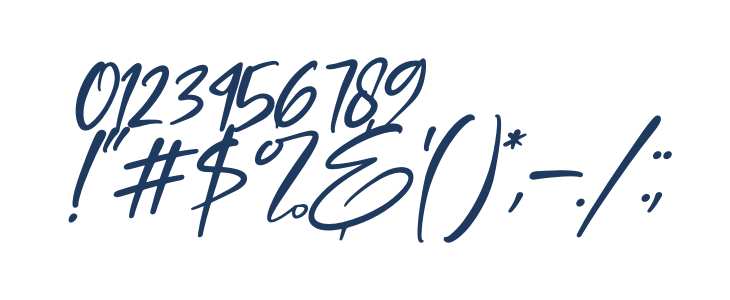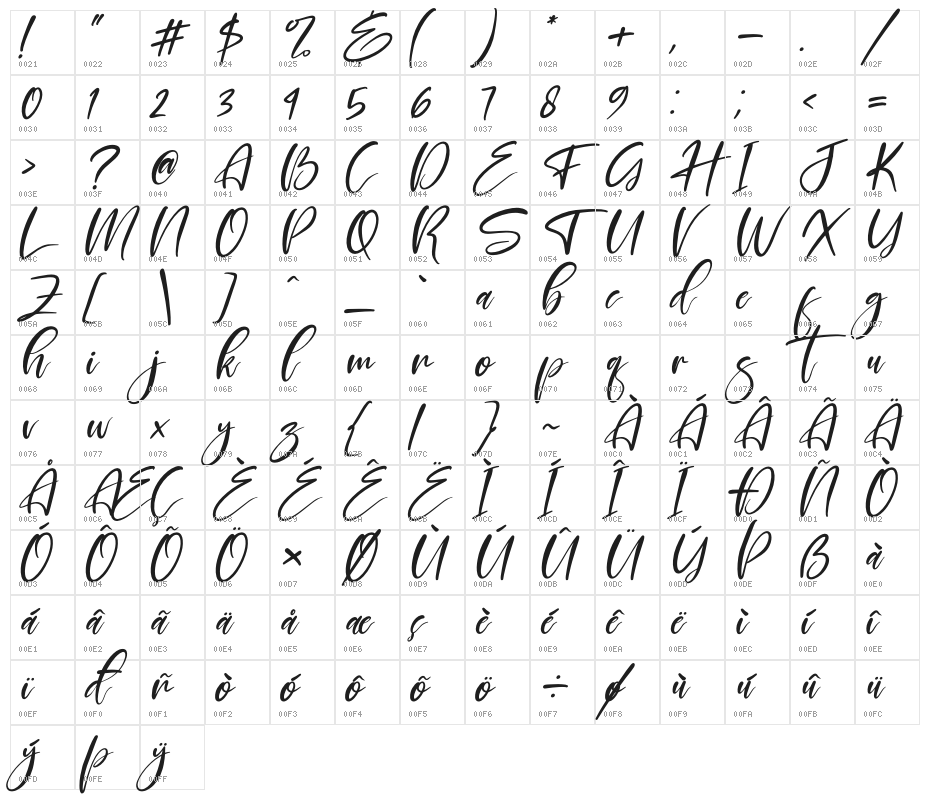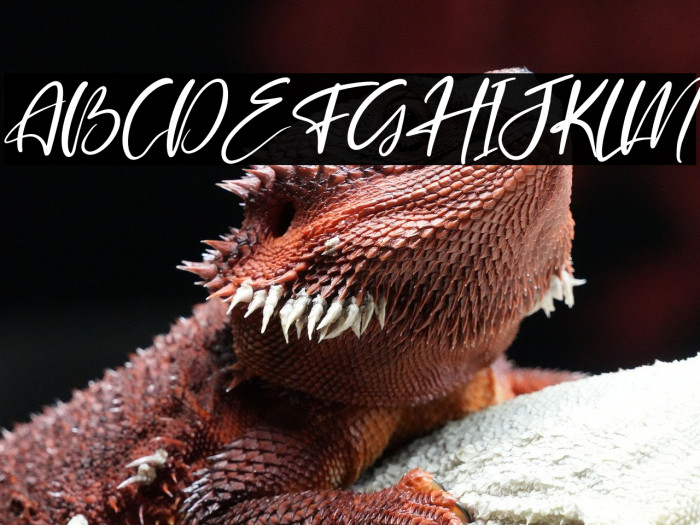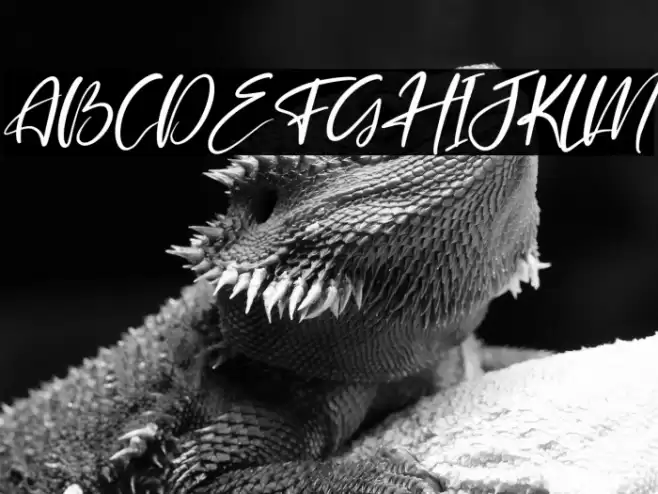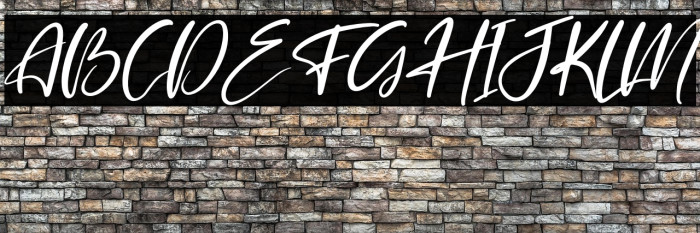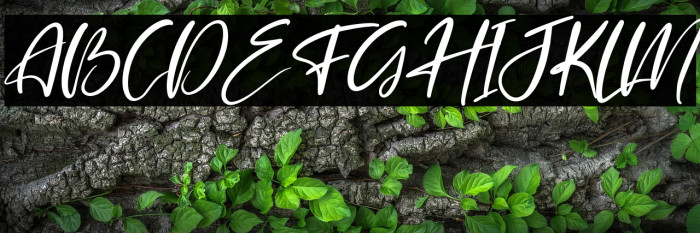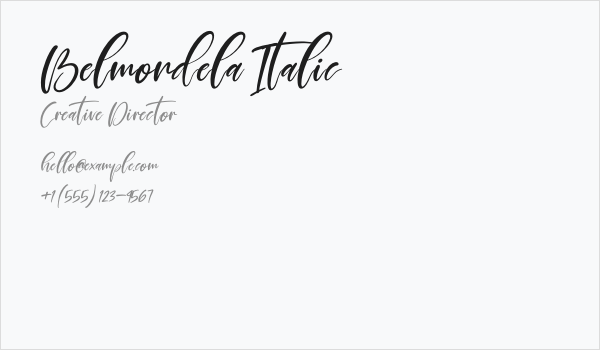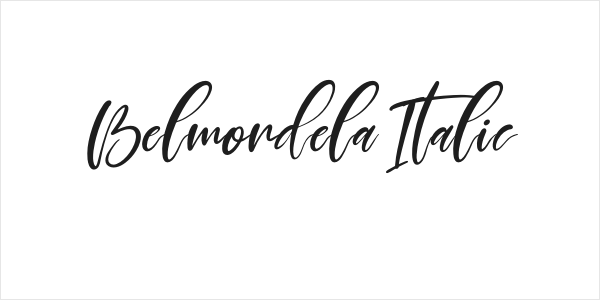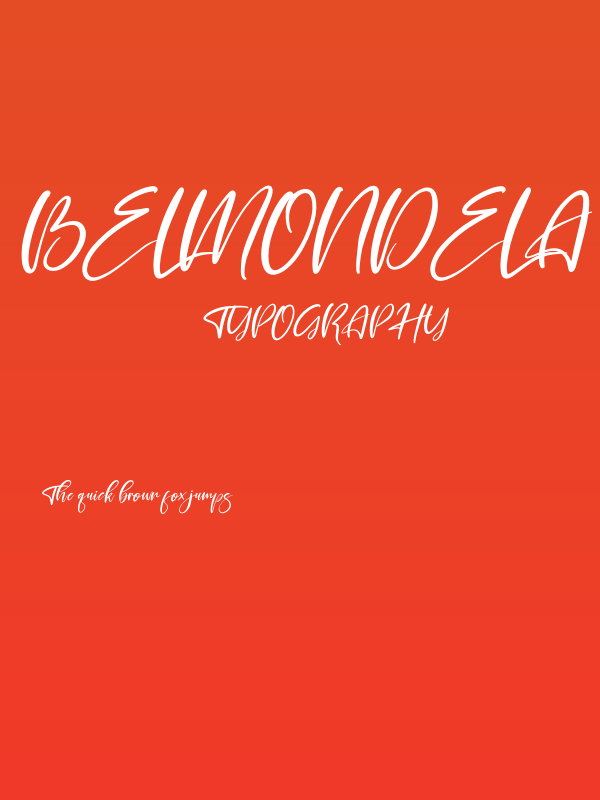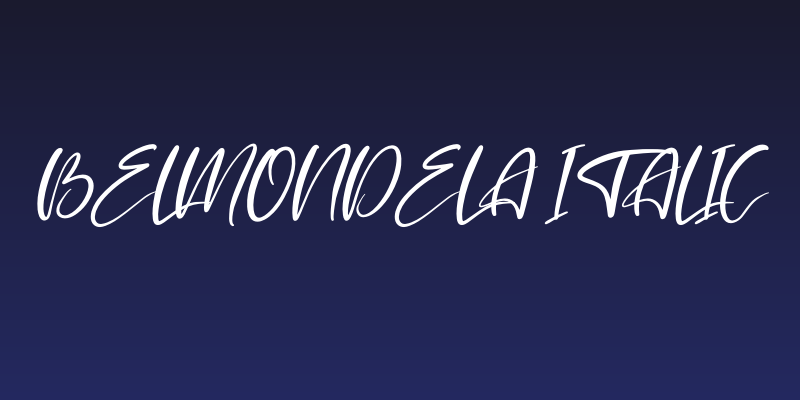
Belmondela Italic Font
Belmondela Italic Description
This font exudes a dynamic and expressive style, characterized by its fluid, cursive script that mimics elegant handwriting. The letters are interconnected with smooth, flowing strokes, giving it a sense of movement and grace. The uppercase letters are bold and prominent, while the lowercase letters maintain a consistent rhythm and flow. The numerals and special characters are crafted with the same attention to detail, ensuring a cohesive look throughout. The font's overall appearance is both sophisticated and approachable, making it suitable for a variety of creative applications.
| Overall Style | Elegant, Expressive |
| Proposed Projects | Ideal for wedding invitations, branding, greeting cards, and other creative projects that require a personal touch. |